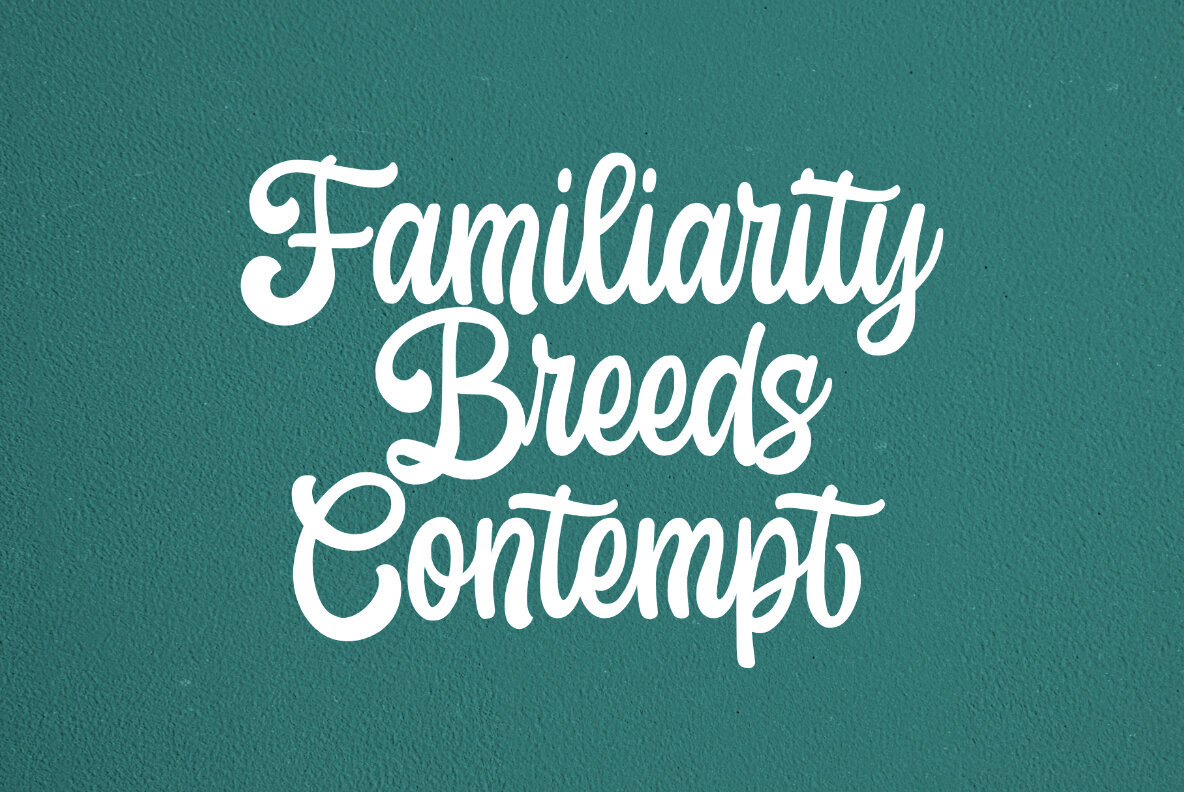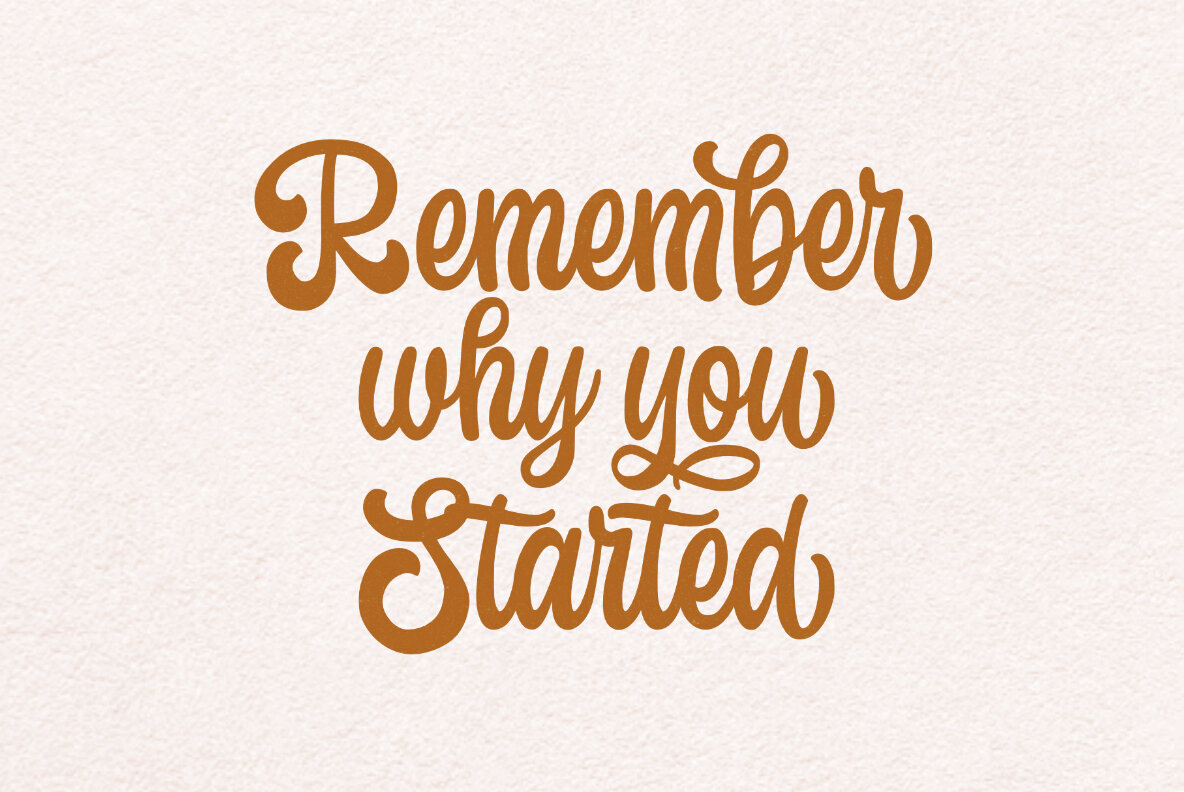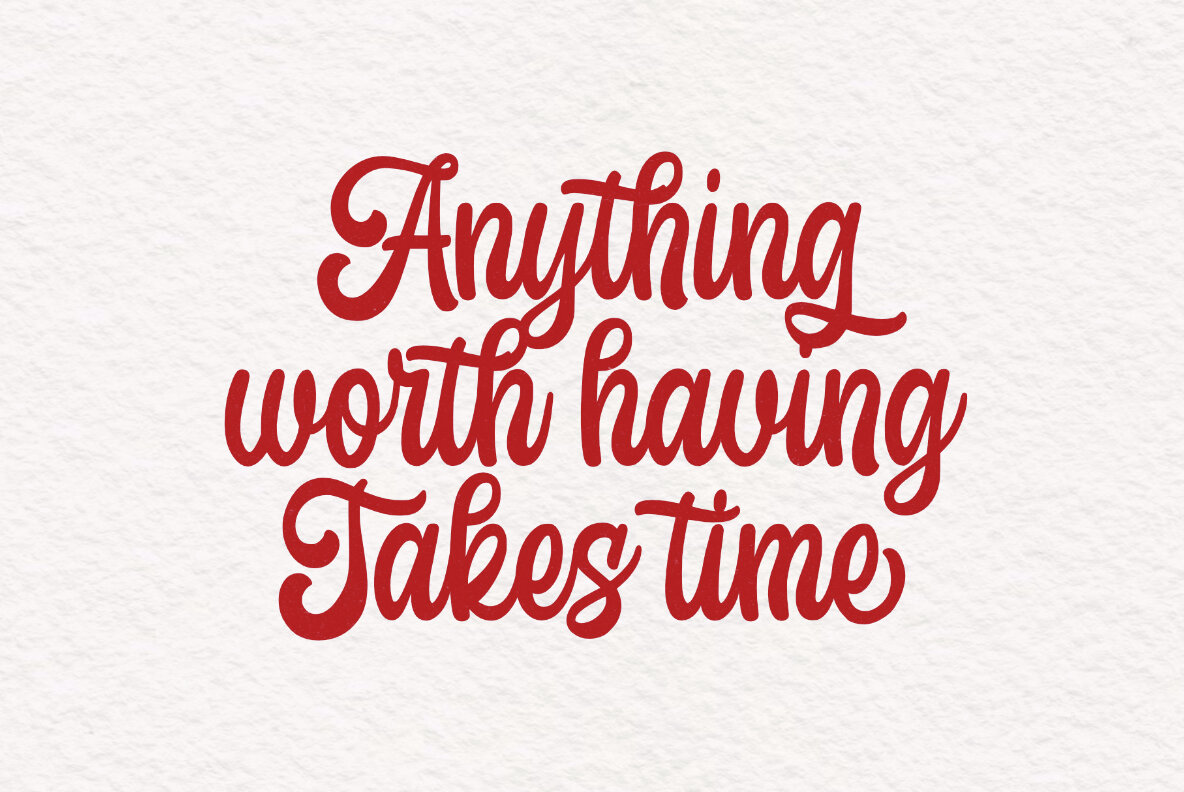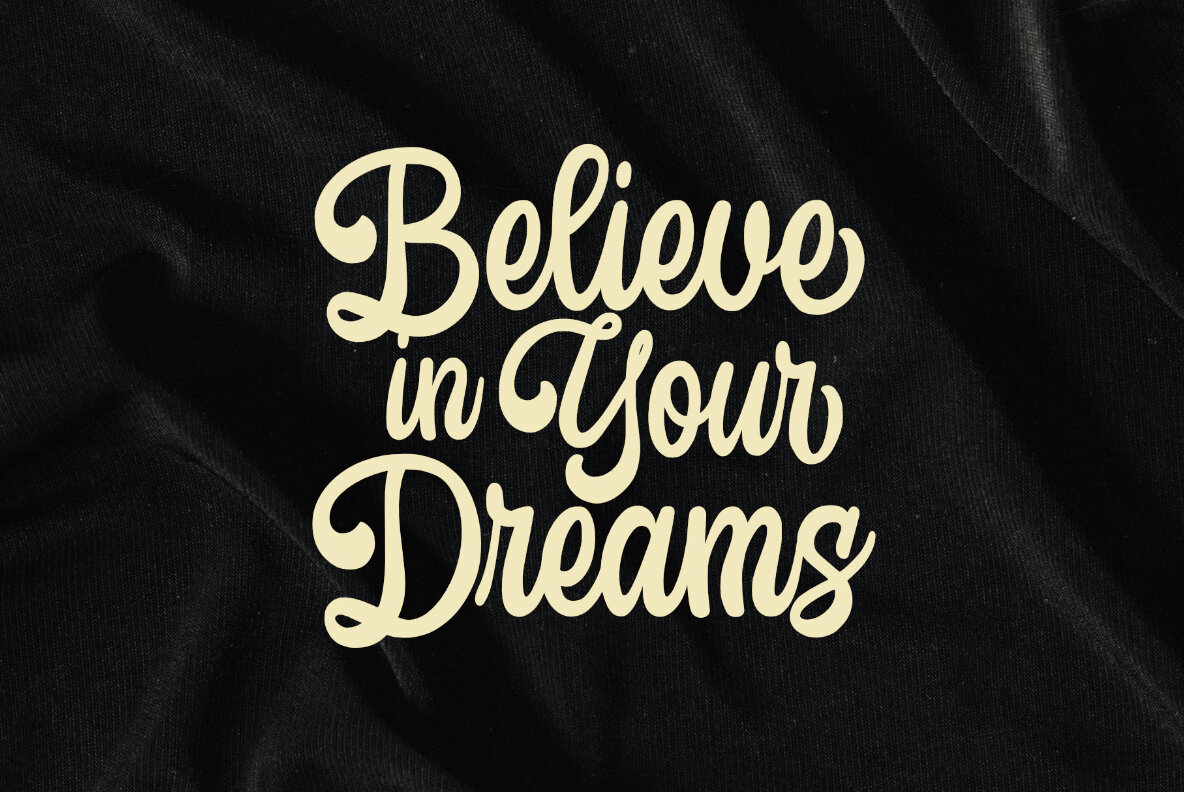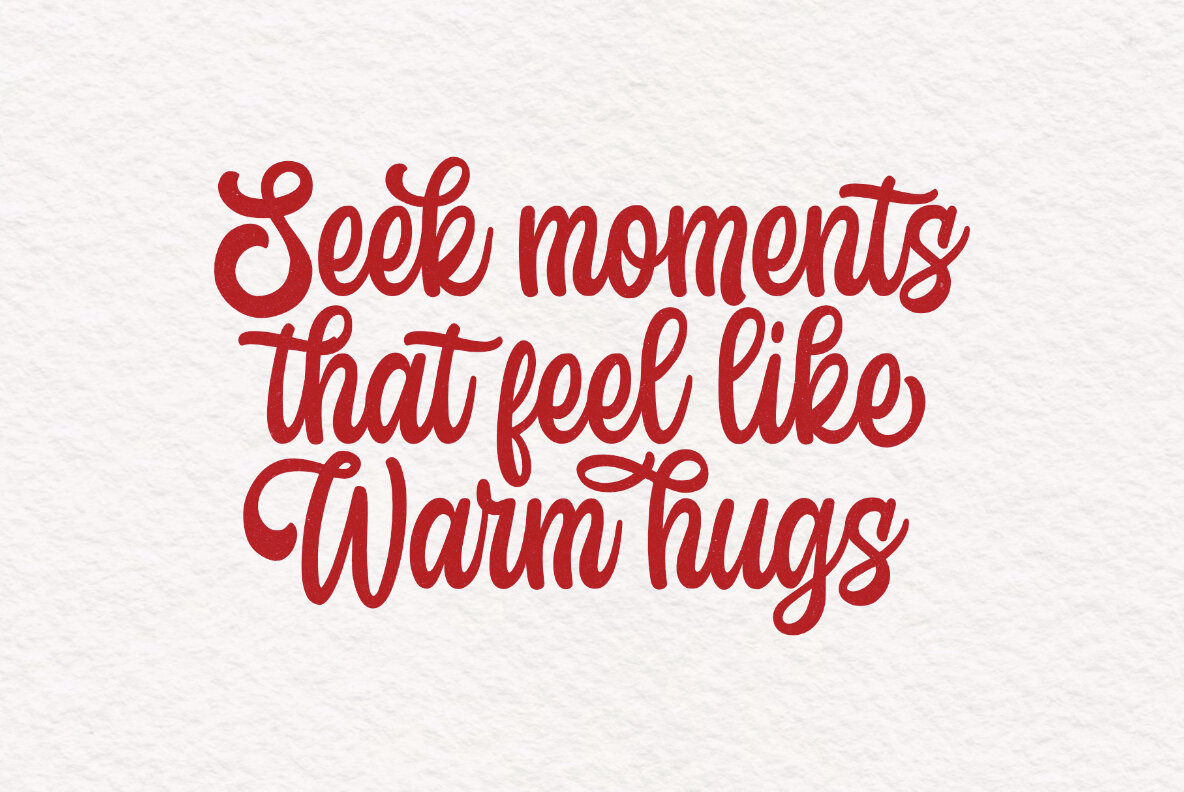
November Delight Font
November Delight Regular
November Delight is a flowing script typeface that embodies elegance and charm with its smooth, graceful curves and meticulously crafted letterforms. This font is ideal for adding a personal and stylish flair to various design projects, including invitations, branding, and editorial design. It exudes warmth and creativity, making it an excellent choice for conveying romance in your work.
The beautifully designed characters of November Delight offer versatility and aesthetic appeal, ensuring your designs leave a memorable impression. Its fluidity and sophistication contribute to a harmonious and refined look, whether for personal celebrations or professional projects. Use this font to enhance the visual interest of your creations with its unique blend of elegance and charm.